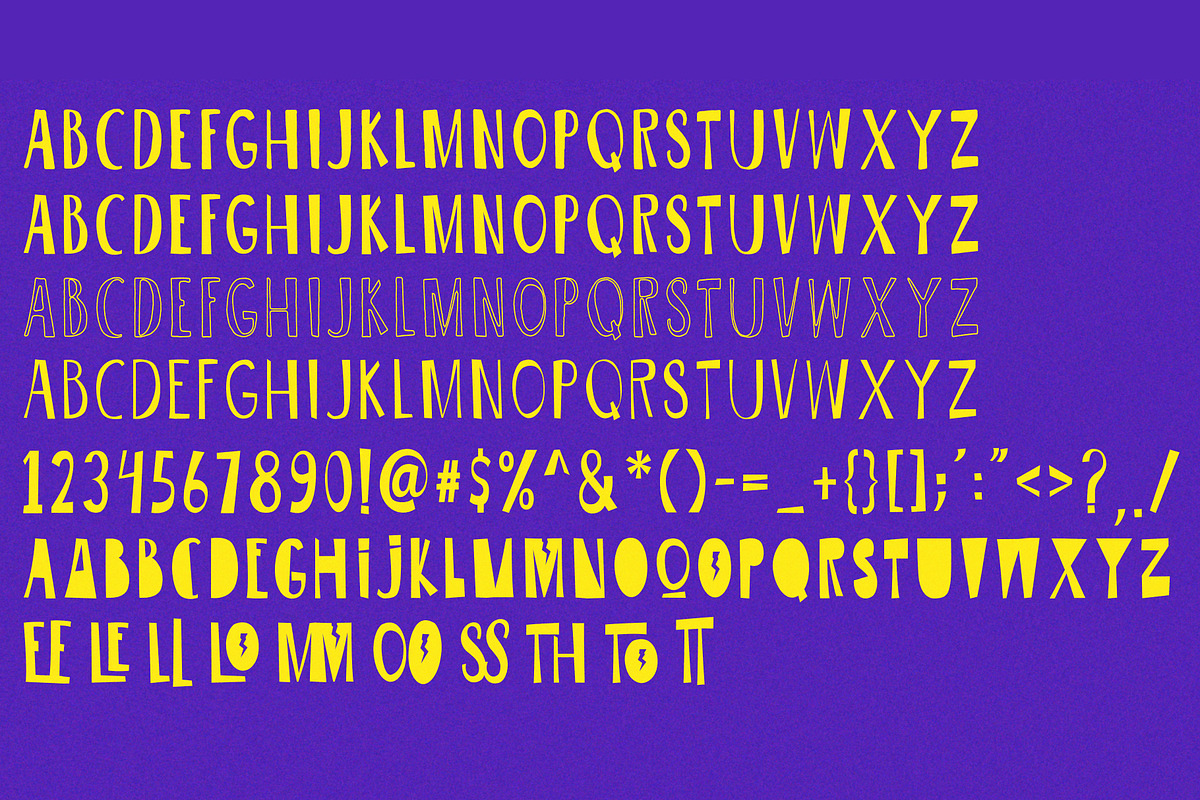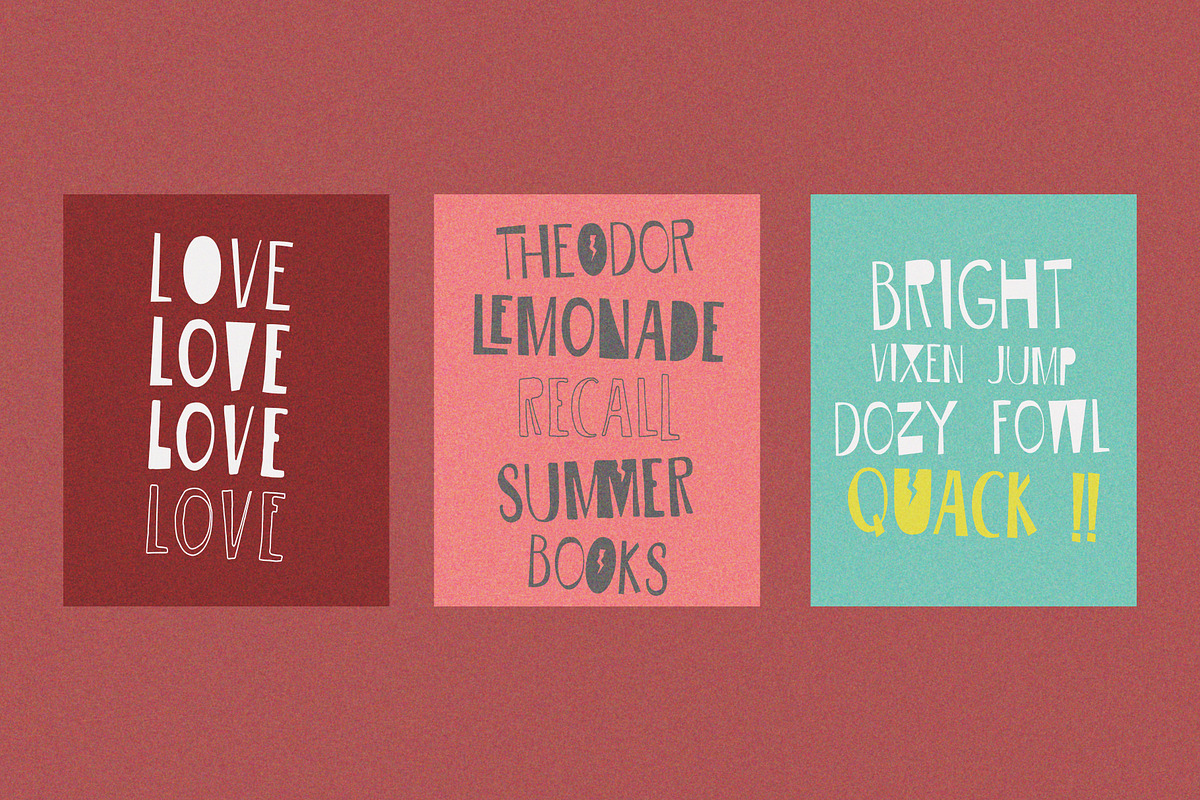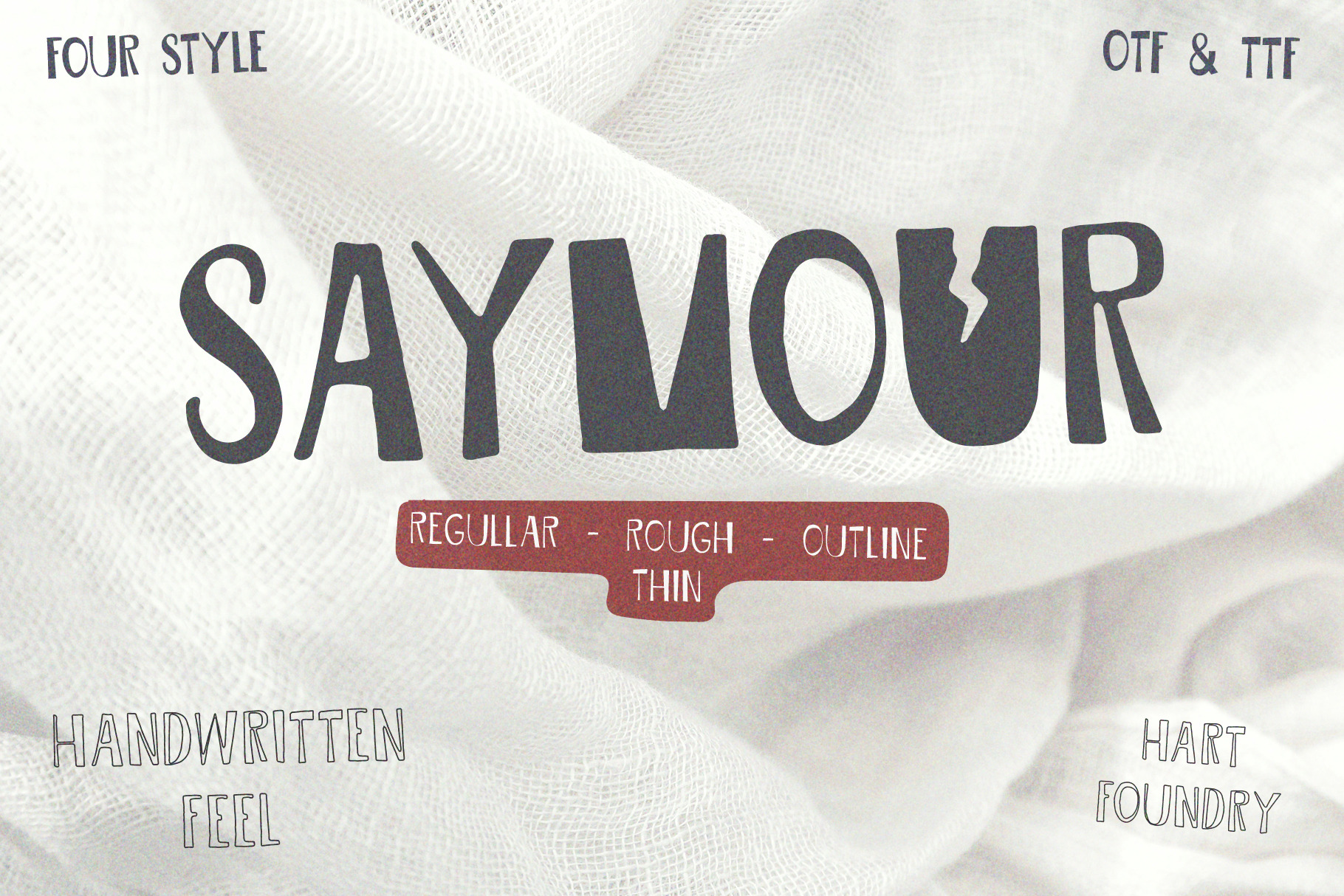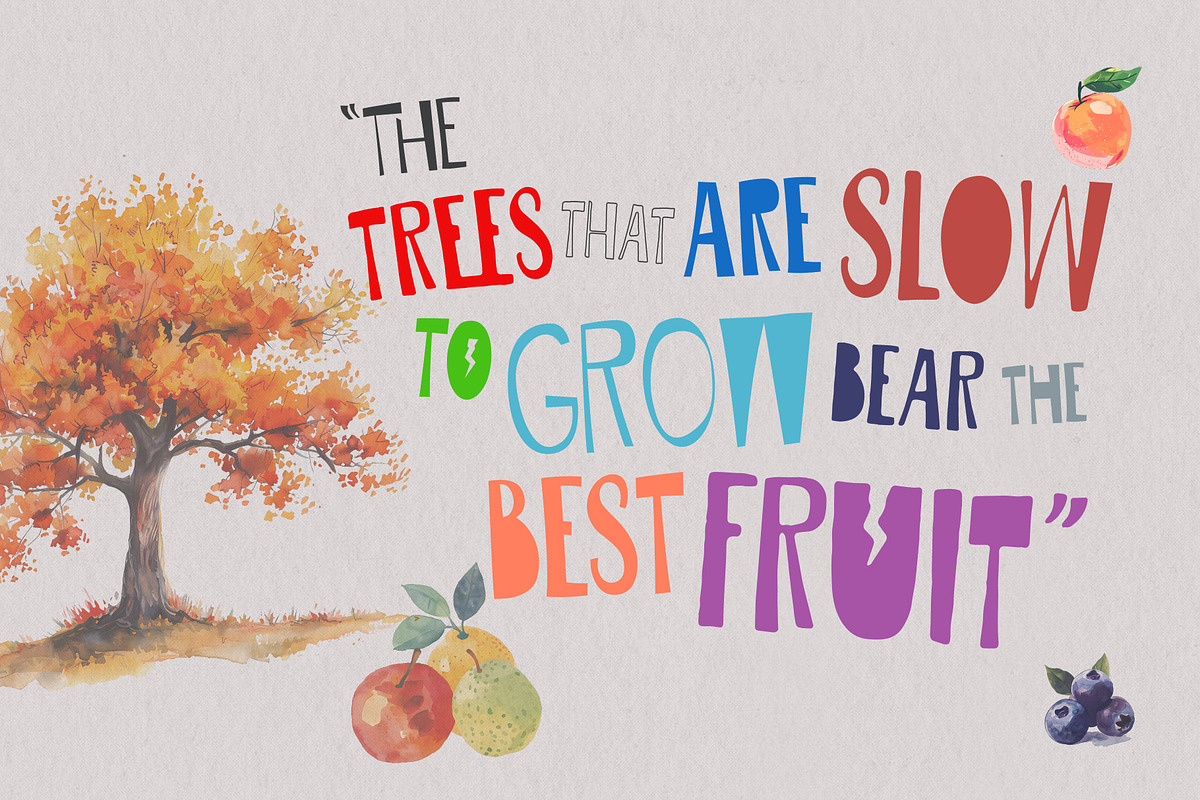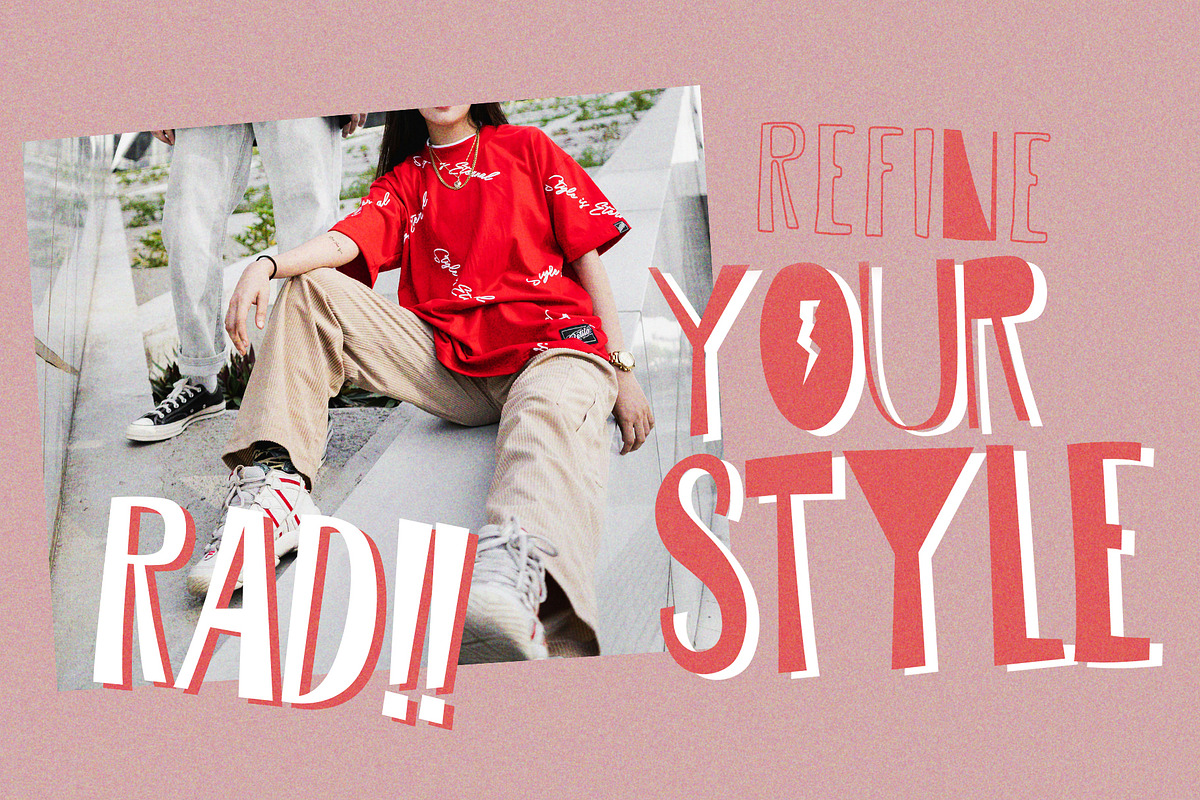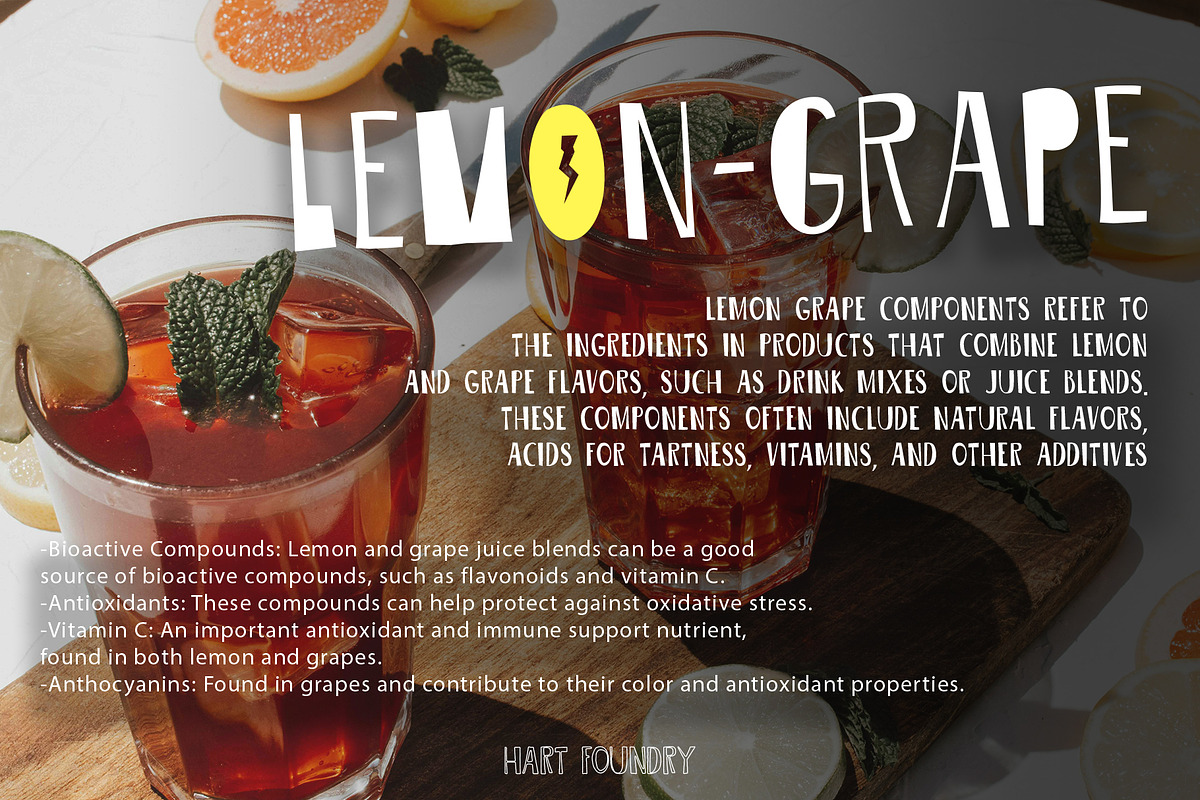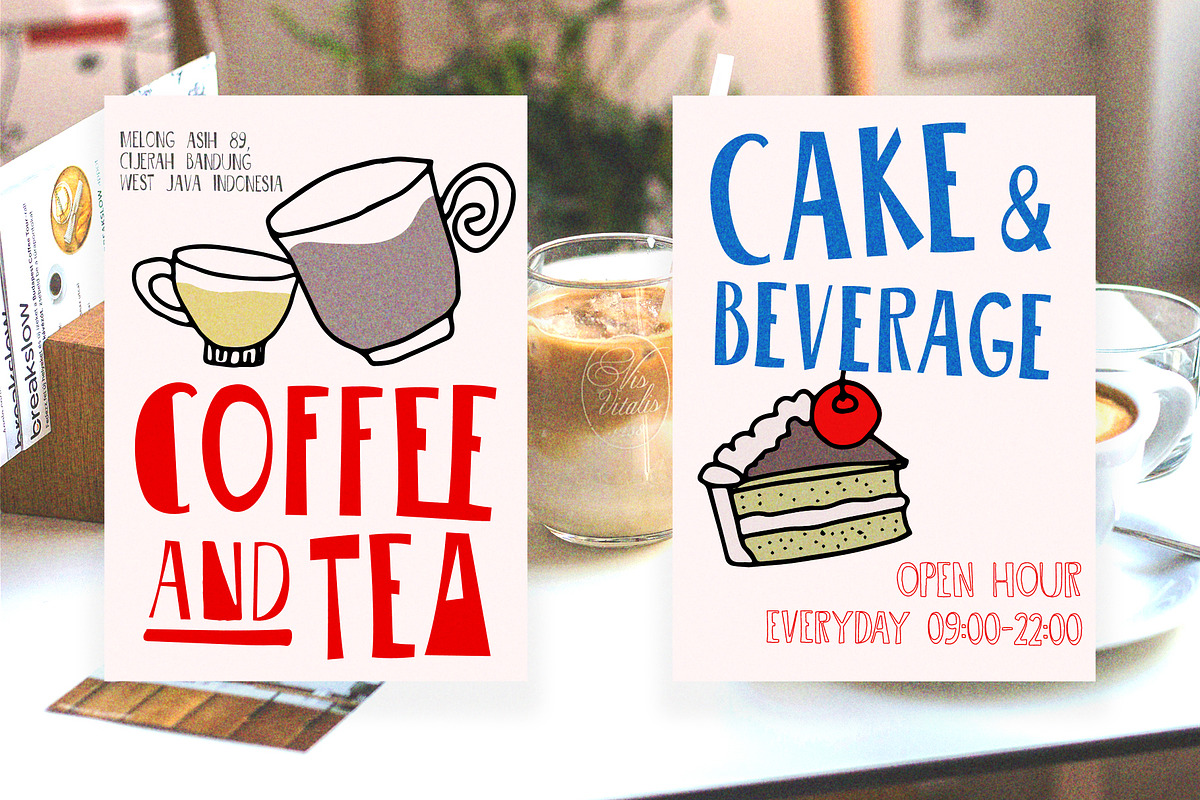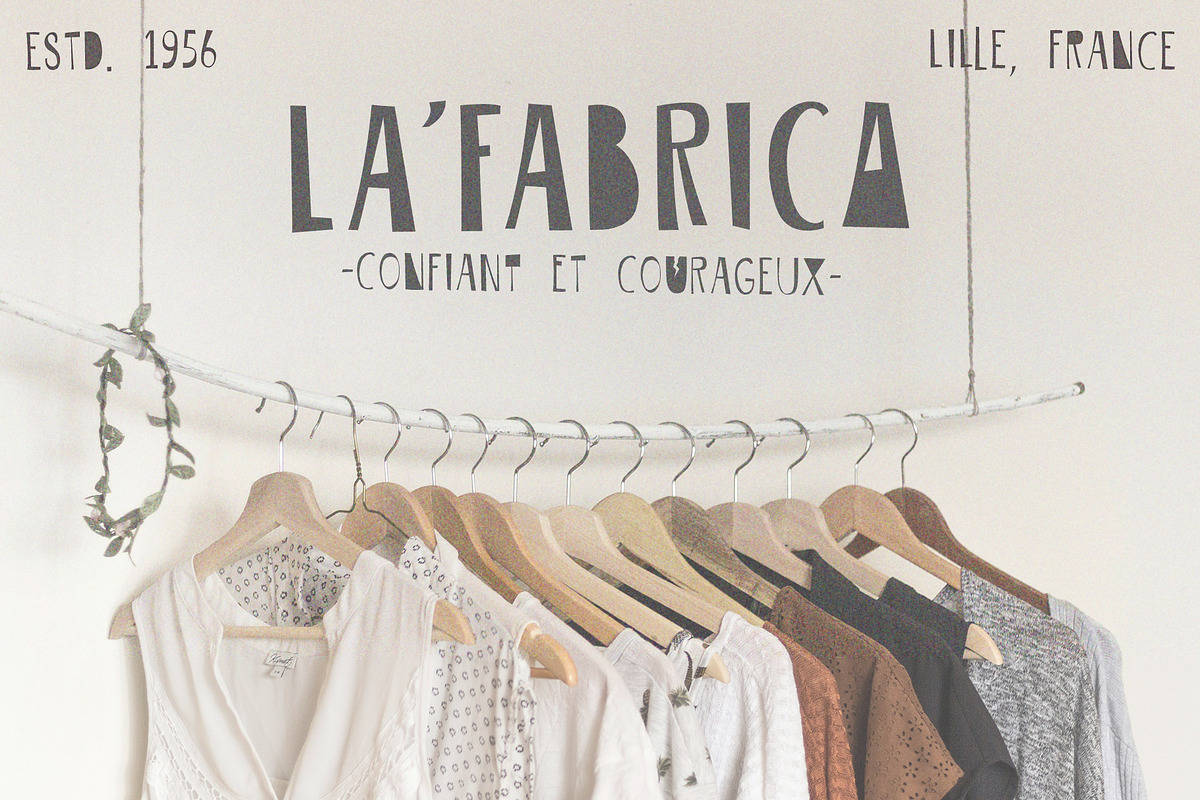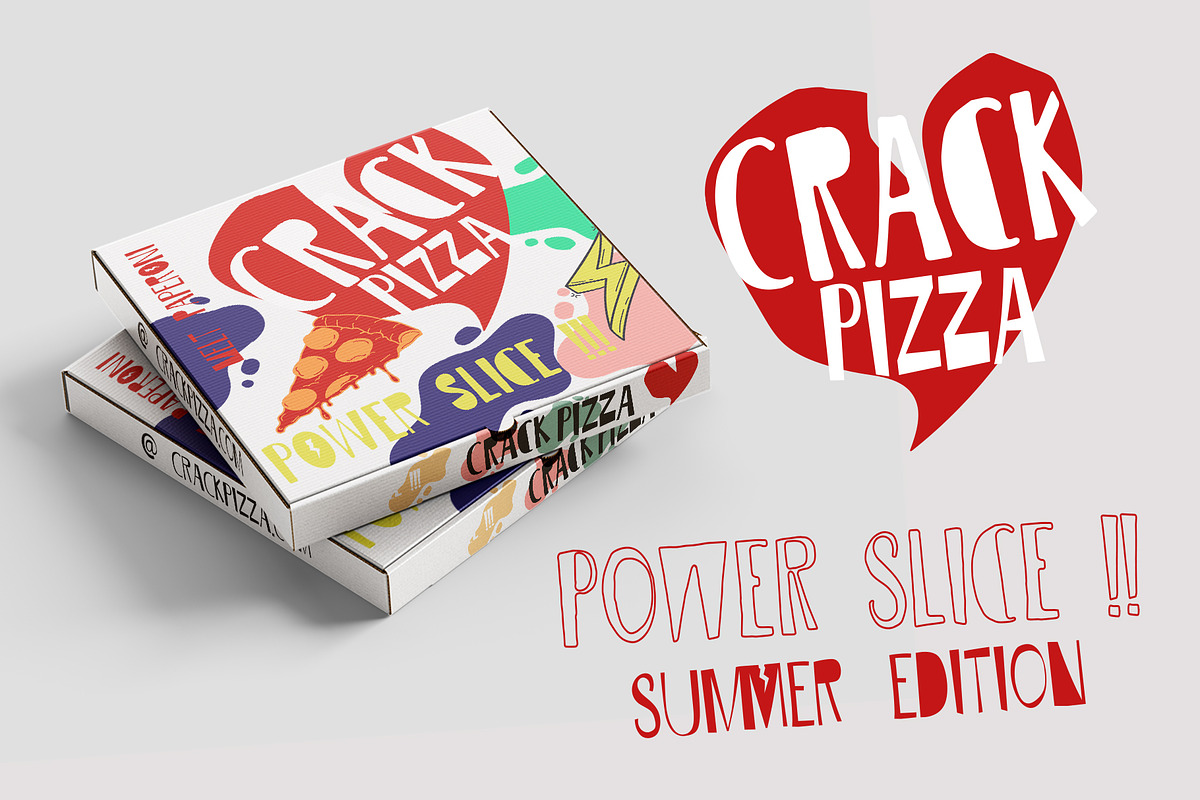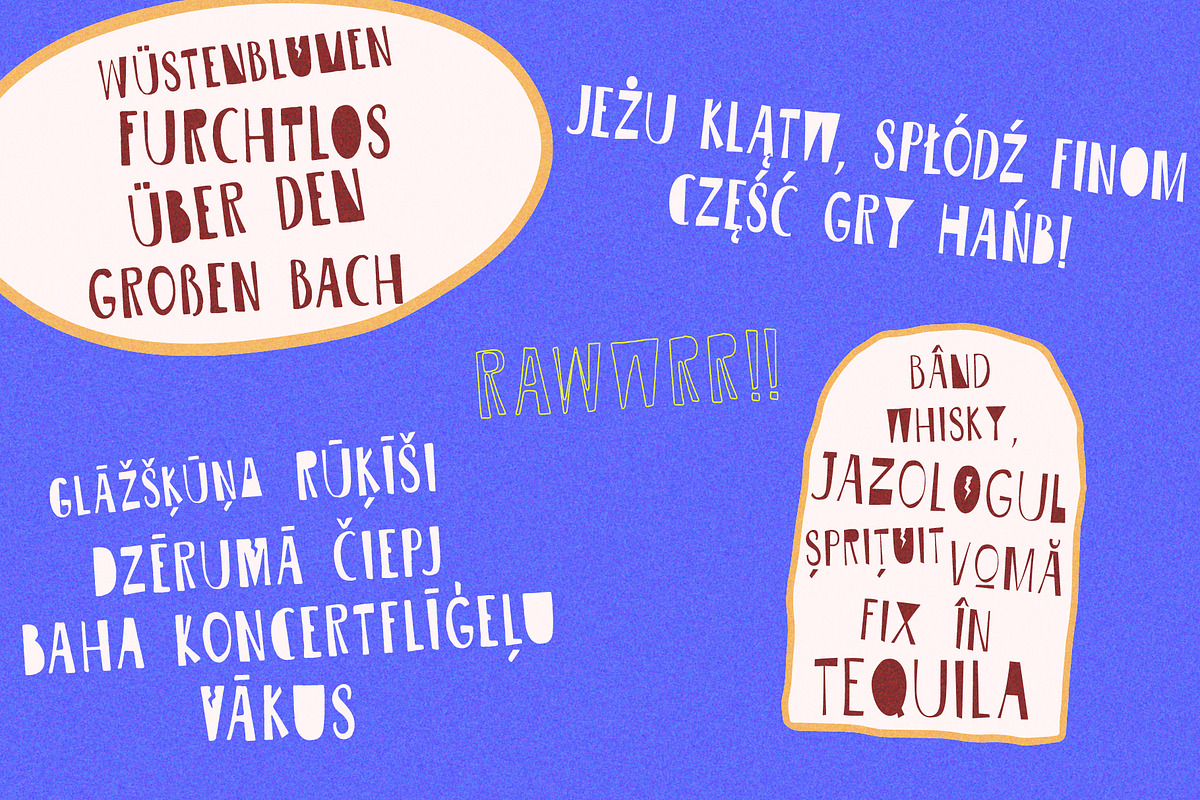
Saymour Font Family
Hallo, There is a new Font from Hart Foundry. Saymour Font Family That look like hand lettering font but still in the digital looks, Saymour font are come with some of alternate and ligature, that looks cool when it use and combine with your own style, Here whats you got from this package,
All the font are come with the same alternate and ligature, and Support for the Multilangual To use the Alternate and ligature, you have device that support Open Type feature, then you replace it with the character you want. If there any question do not hesitate to let me know... Best Regard, Ardy